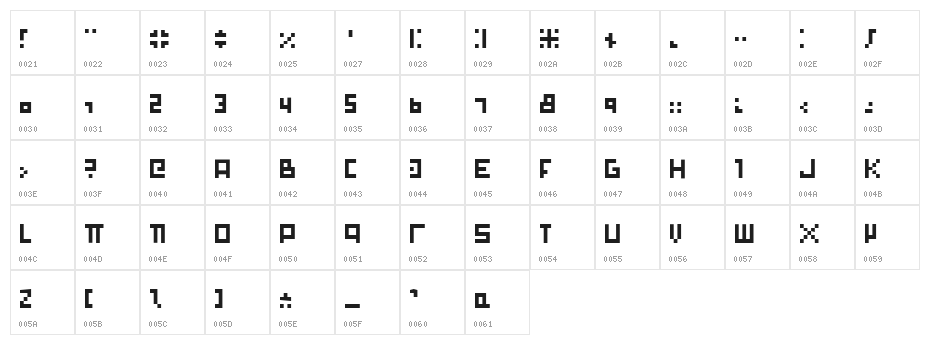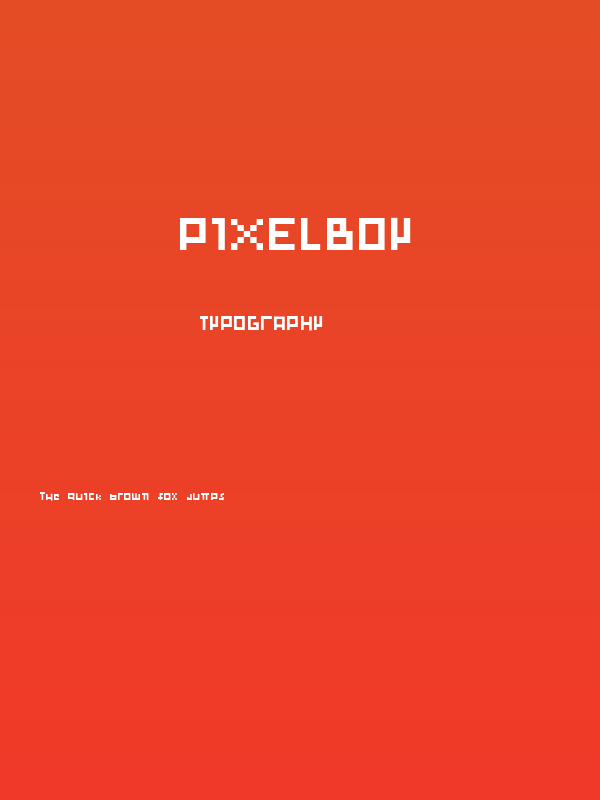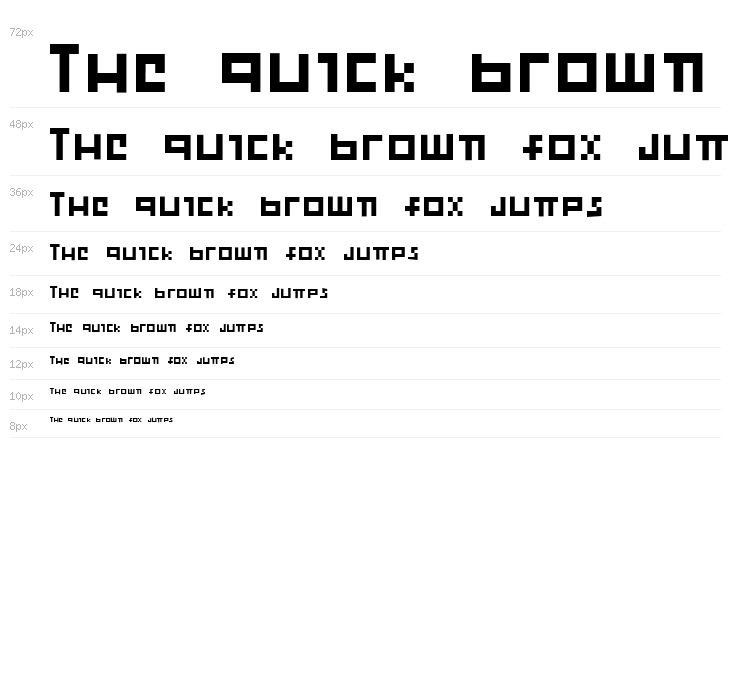
PixelBoy Font
PixelBoy Description
This font embodies a retro, pixelated style reminiscent of early video game graphics. Each character is constructed with a blocky, grid-like appearance, emphasizing a digital aesthetic. The uppercase and lowercase letters maintain a consistent geometric form, with sharp angles and uniform line thickness. Numbers and special characters follow the same pixelated design, ensuring a cohesive look across all glyphs. The font's simplicity and nostalgic feel make it ideal for projects that aim to capture a vintage digital or arcade theme.
| Use Case | Headlines, Logos, Digital Art |
| Proposed Projects | Ideal for video game design, retro-themed posters, digital art projects, and any creative work that seeks to evoke nostalgia for early computer graphics. |